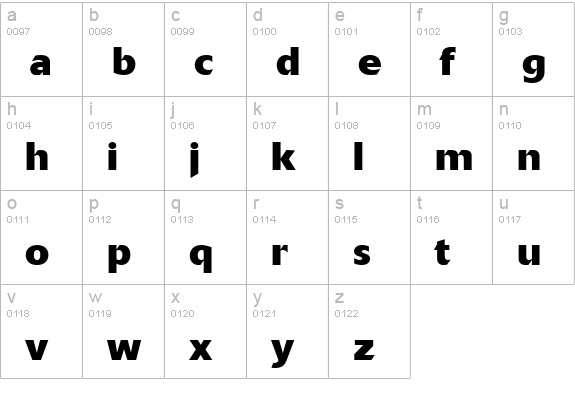
Delta Jaeger Bold is a strong, high-contrast variant in the Delta typeface family \xE2\x80\x94 well suited to headlines, attention-grabbing titles, and strong calls-to-action.
Delta Jaeger Bold font is a striking display typeface that exudes power and strength with its bold and impactful design. Perfect for headlines, logos, and posters, this font commands attention and leaves a lasting impression. Its sharp lines and geometric shapes give it a modern and edgy look, making it ideal for projects that require a strong visual presence. The best part? Delta Jaeger Bold font is completely free to download at FontsMarket.com. Whether you're a designer looking to add a bold statement to your next project or a business owner seeking to enhance your brand identity, this font is a versatile choice that won't cost you a penny. Don't miss out on the opportunity to elevate your designs with this powerful and dynamic typeface. Download Delta Jaeger Bold font today and make a bold statement with your typography.